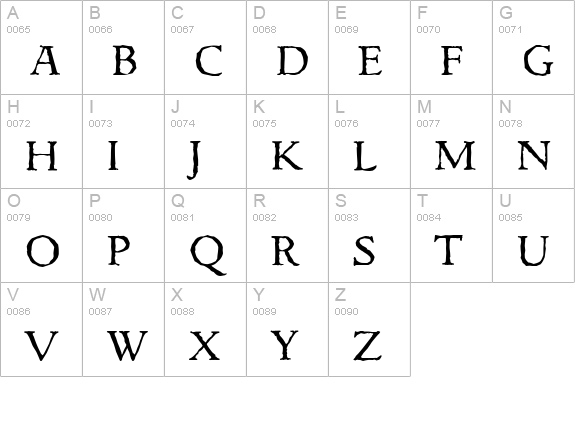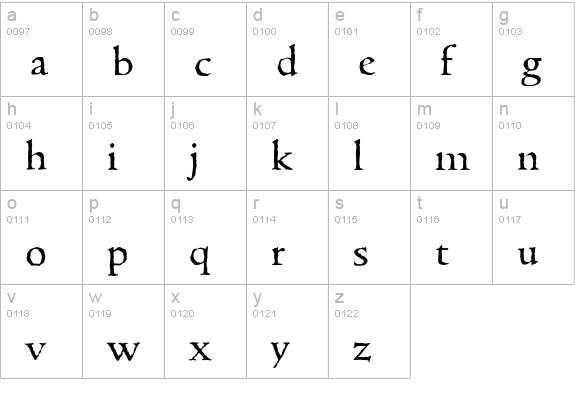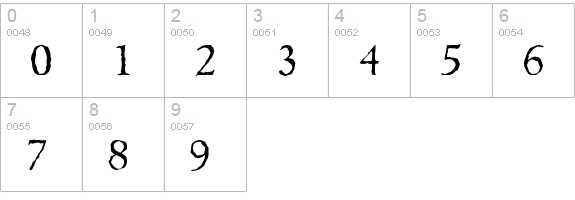
GouditaAntique-Regular Font Details
GouditaAntique-Regular is the standard, neutral variant in the GouditaAntique typeface family \xE2\x80\x94 well suited to general body text, paragraphs, and standard typographic work.
GouditaAntique-Regular is a timeless and elegant serif font that exudes vintage charm and sophistication. Its classic letterforms and intricate details make it perfect for adding a touch of old-world elegance to your designs. The versatility of GouditaAntique-Regular allows it to be used in a wide range of projects, from branding to invitations to editorial design. This font is freely available for download at FontsMarket.com, making it easily accessible for designers looking to add a touch of elegance to their work. With its graceful curves and refined aesthetic, GouditaAntique-Regular is sure to elevate any project it is used in. Whether you're working on a wedding invitation, a vintage-inspired logo, or any other design project, GouditaAntique-Regular is the perfect choice for adding a touch of timeless beauty.